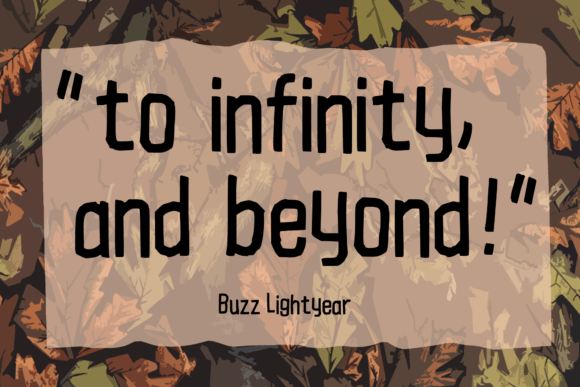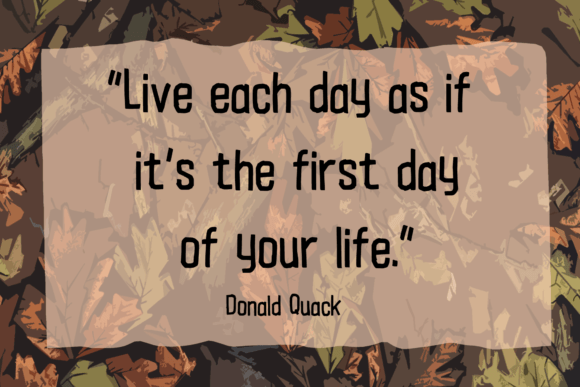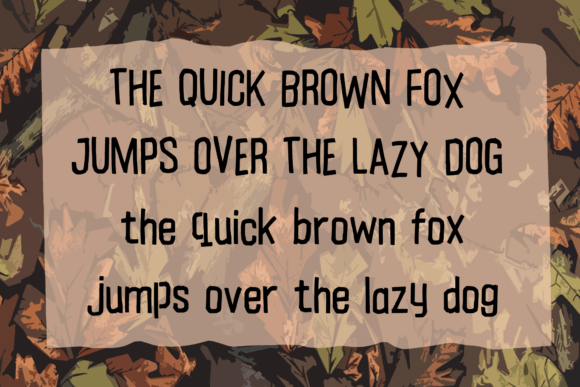
The Funky Soldier Font: Adding Playfulness to Your Designs
I’ll never forget the time I was working on a project for a children’s party invitation. I had the design concept all sorted out, but I was stuck on finding the perfect font. The invitation needed to be fun, playful, and energetic, but everything I tried seemed either too boring or too over-the-top. That’s when I stumbled upon the Funky Soldier font. It was like a breath of fresh air! The moment I saw it, I knew it was the one. In this article, I’ll share my experience with the Funky Soldier font, its features, and how to make the most of it in your designs.
An Honest Review of Funky Soldier Font
• Playful and casual vibe: The Funky Soldier font embodies a fun and casual handwritten style that’s perfect for projects that need a personal touch.
• Authentic feel: The font has an authentic, hand-crafted feel that makes it relatable and engaging.
• 💡 Versatility: Funky Soldier can be used for a wide range of projects, from party invitations to social media graphics, and even branding materials.
While the Funky Soldier font is amazing, there are a few things to keep in mind:
• 🤔 Legibility at small sizes: Like many handwritten fonts, Funky Soldier can be a bit tricky to read at very small sizes. It’s best used at larger sizes or for headlines.
• ⚠️ Limited formal use: Due to its playful nature, Funky Soldier might not be the best choice for formal or professional projects that require a more serious tone.
The Designer Inspiration Behind Funky Soldier
While the true story behind Funky Soldier’s creation is unknown, it’s easy to imagine a designer who loves playfulness and authenticity. Perhaps they wanted to create a font that would bring a smile to people’s faces and add a personal touch to their designs. Whatever the inspiration, Funky Soldier is a font that’s sure to delight.
Font Name Funky Soldier Font
Author MVMET
Q: What type of projects is Funky Soldier best suited for?
A: Funky Soldier is perfect for projects that need a playful and casual touch, such as party invitations, social media graphics, and branding materials.
Q: Is Funky Soldier a difficult font to read?
A: Like many handwritten fonts, Funky Soldier can be a bit tricky to read at very small sizes. It’s best used at larger sizes or for headlines.